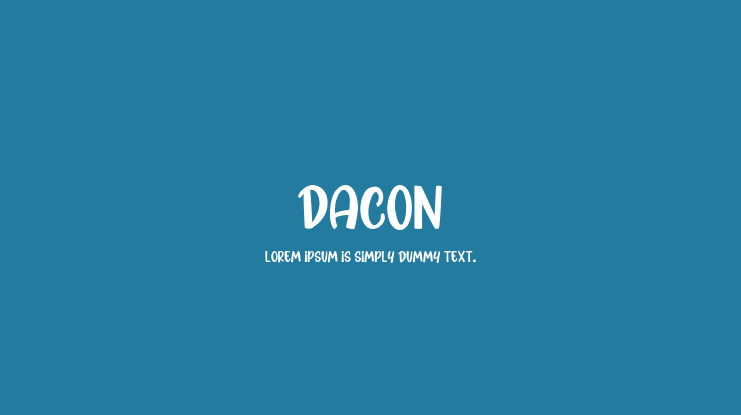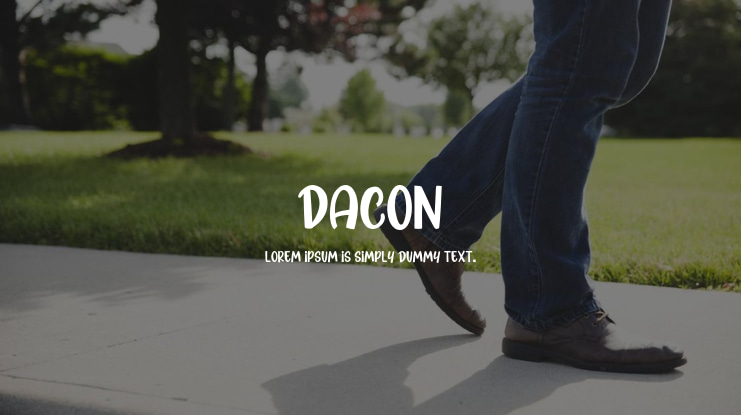
Dacon Font
Attention to Special Creative Products! Our unique range of products promises to bring you an exceptional experience. Featuring the latest stylish letter designs, perfect for enhancing wall displays, wedding invitations, social media posts, logos, advertisements, product packaging, labels, photography, watermarks, invitations, stationery, and any project that requires elegant handwriting.
Dacon Regular font